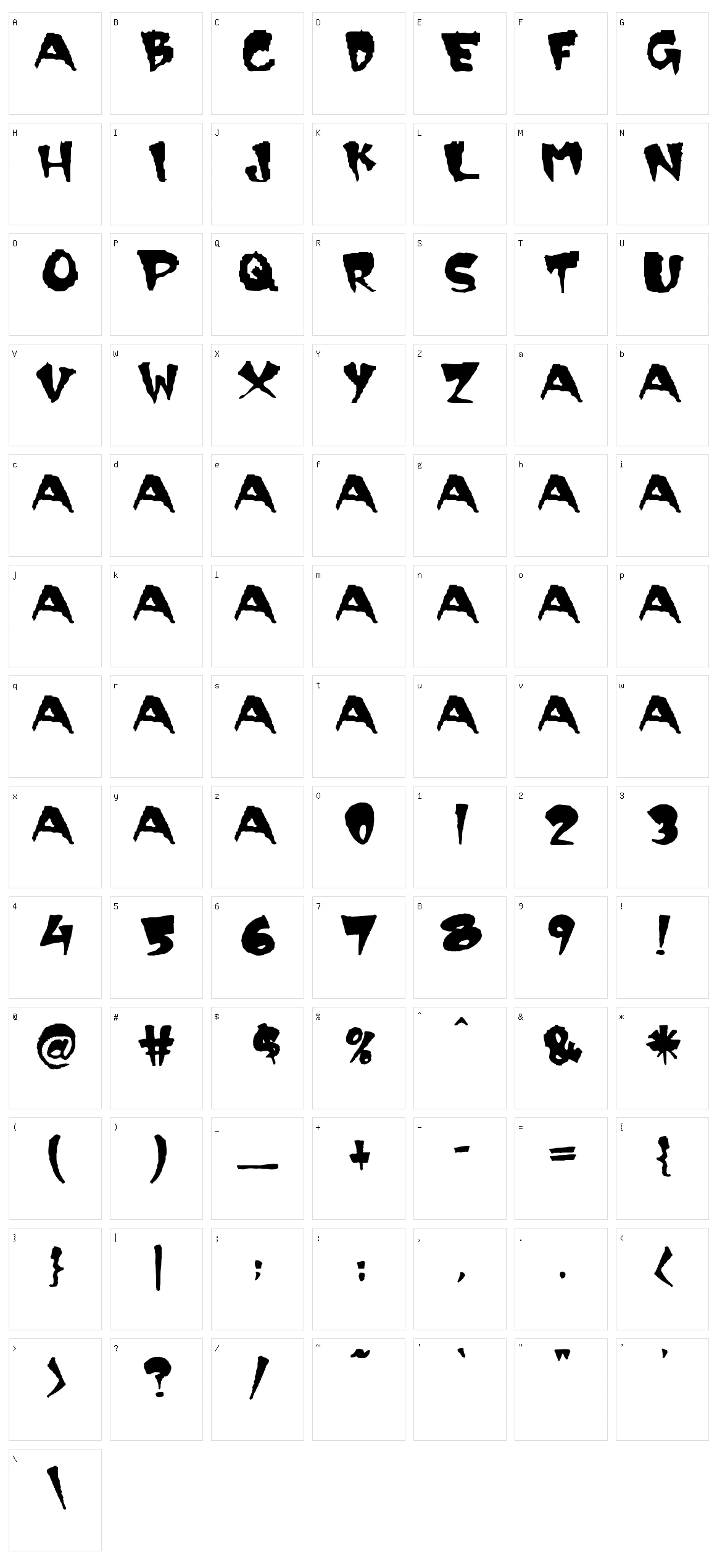
Hello and thanks for the interest. This is made from a scan of my hand-scribbling. The idea was to write out the characters as quick
as possible. I didn't even bother with all the characters. This little message is the usual crap about the struggling graphic artist.